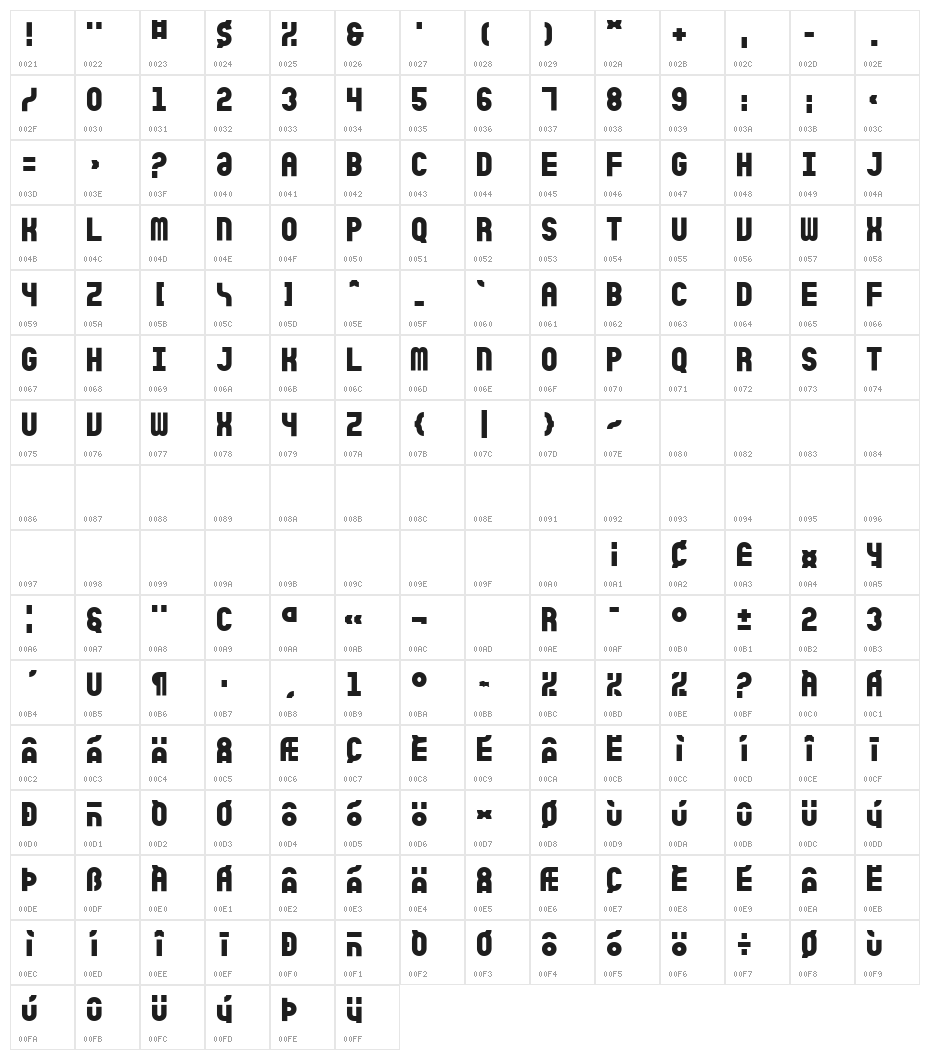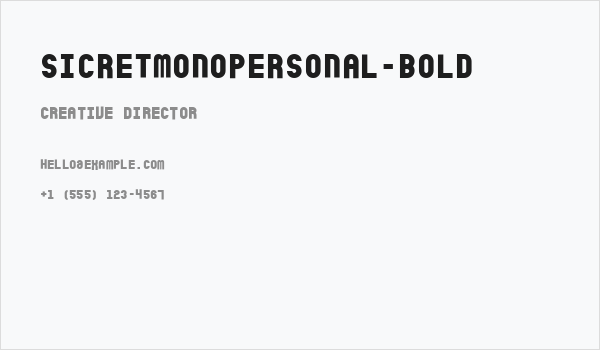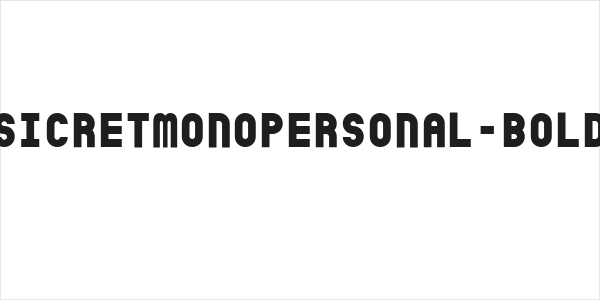
SicretMonoPERSONAL-Bold Font
SicretMonoPERSONAL-Bold Description
This font features a bold and robust design with a monospaced structure, making it ideal for coding and technical documents. The characters are uniformly spaced, providing a clean and organized appearance. The uppercase letters are strong and assertive, while the lowercase letters maintain a consistent weight, enhancing readability. The numbers are clear and distinct, ensuring they stand out in any context. Special characters are well-defined, adding to the font's versatility. The overall style is modern and functional, suitable for various digital and print applications.
| Use Case | Headlines, Body text, Logos, Coding |
| Proposed Projects | Ideal for coding, technical documents, digital interfaces, and print media requiring clarity and uniformity. |